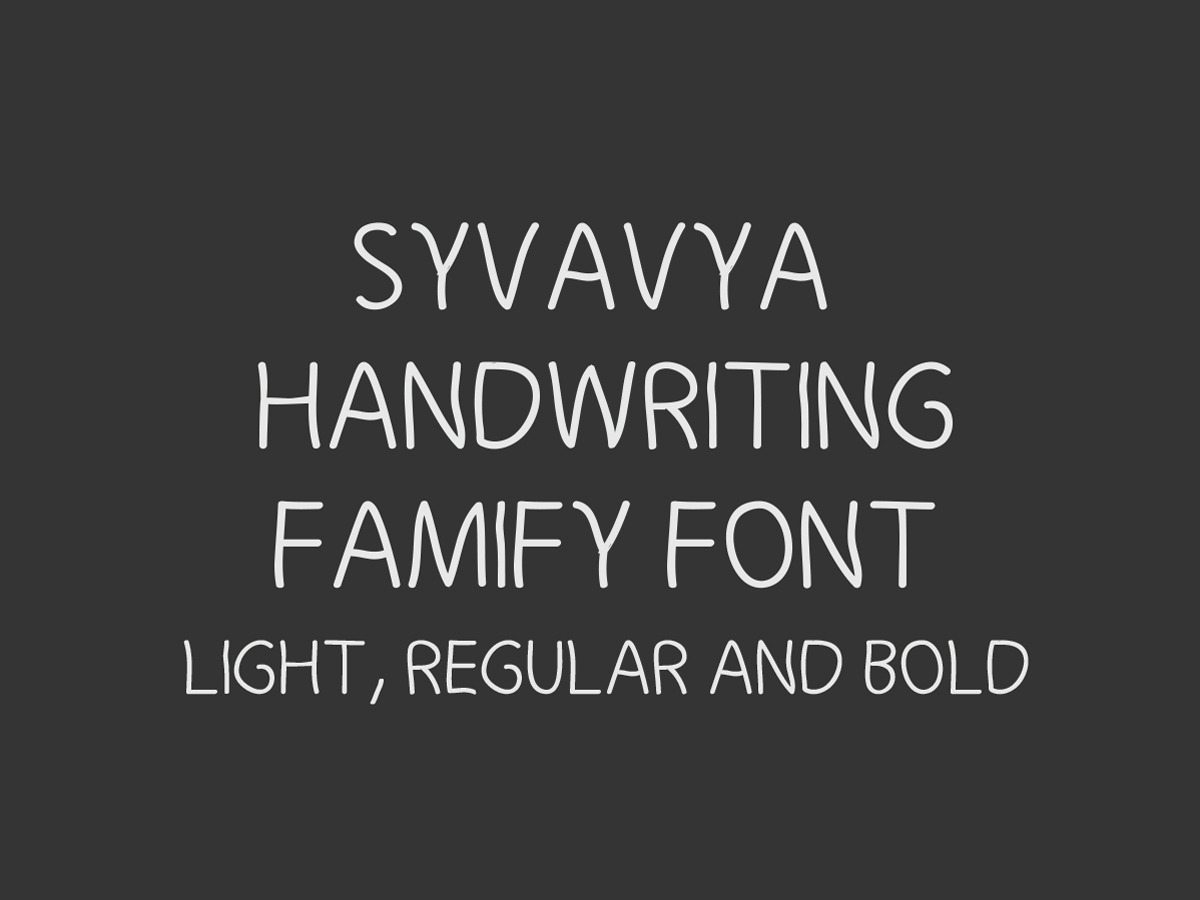
Syvavya Handwriting Family Font
Syvavya Handwriting Family Fonts are Handwriting Display Font, its design is simple and instinctive, just like a note left on the table. Syvavya is a font that helps to unchain the creativity. The plain design make it perfect to suite positive communication as corporate identity or advertising of Bio products or renewable energies, posters, greetings cards and much more.